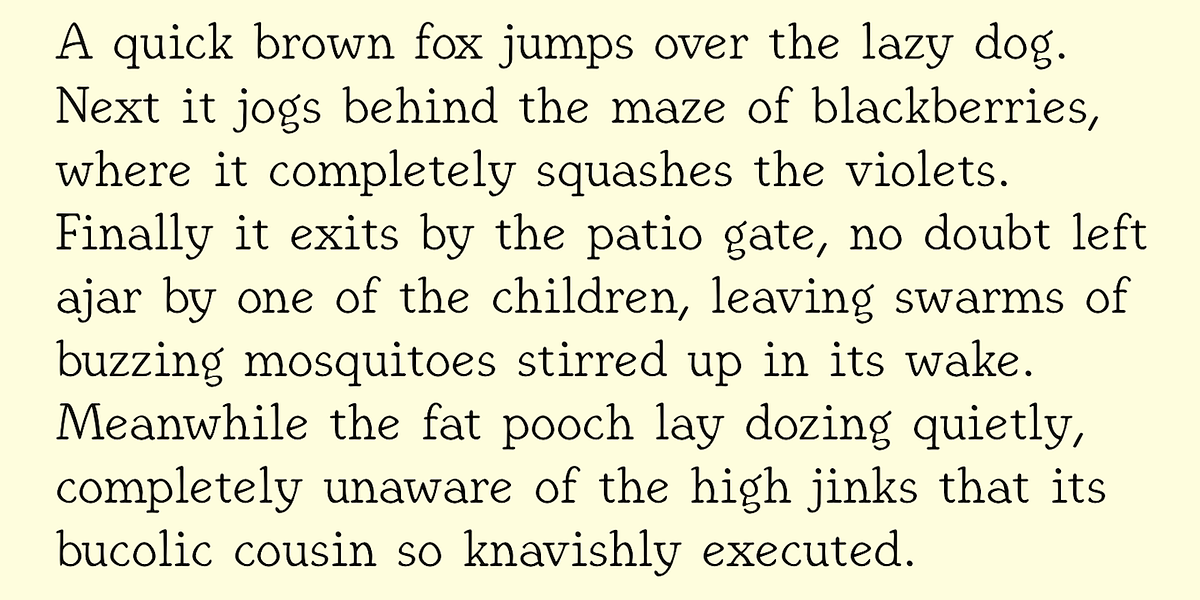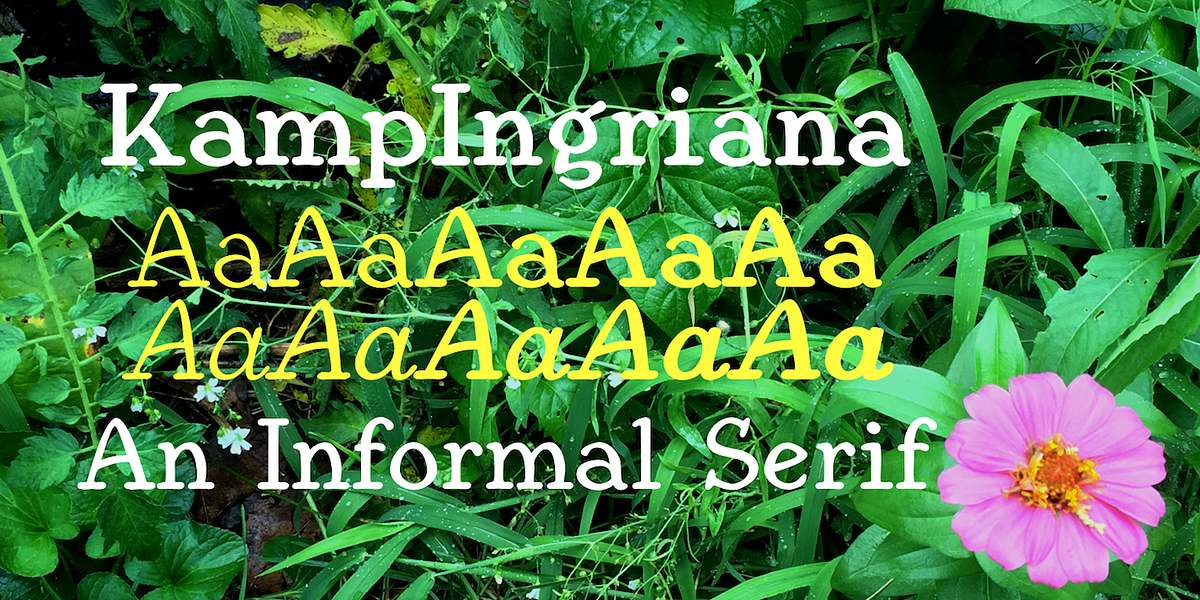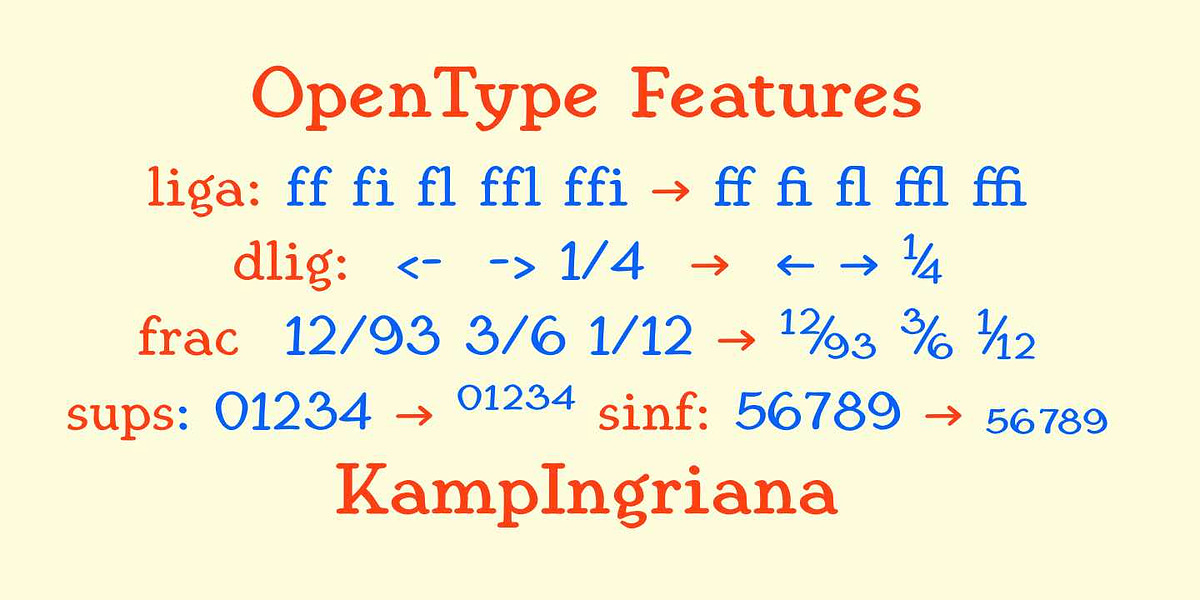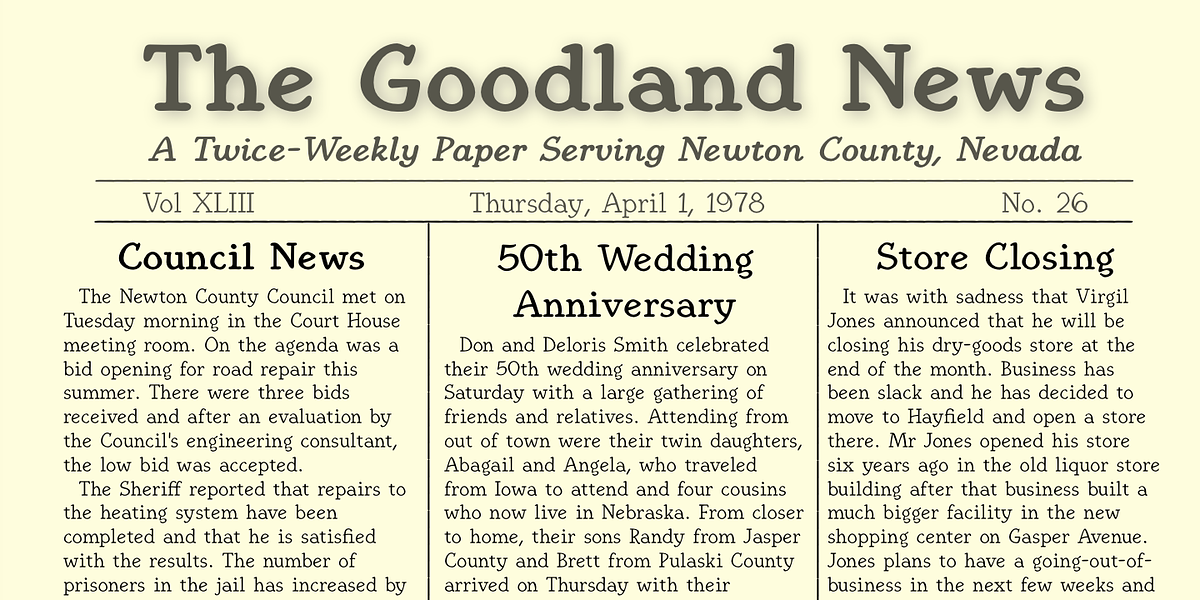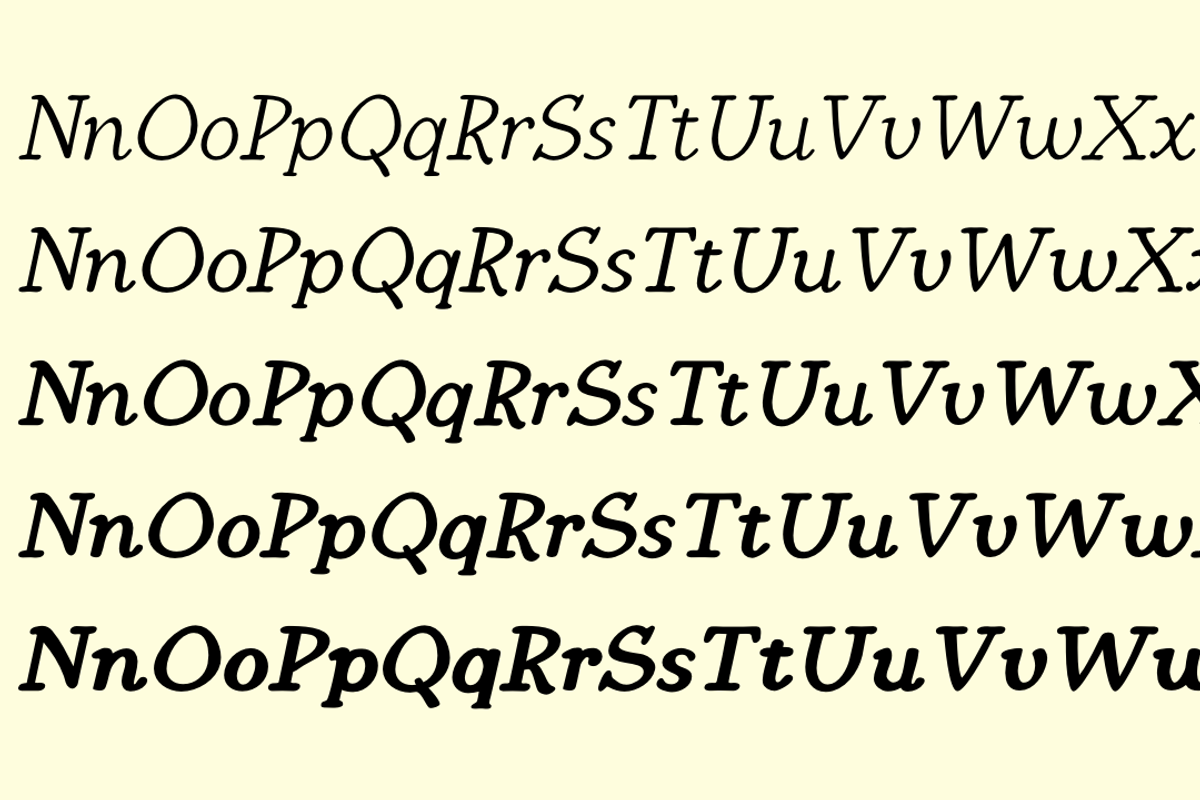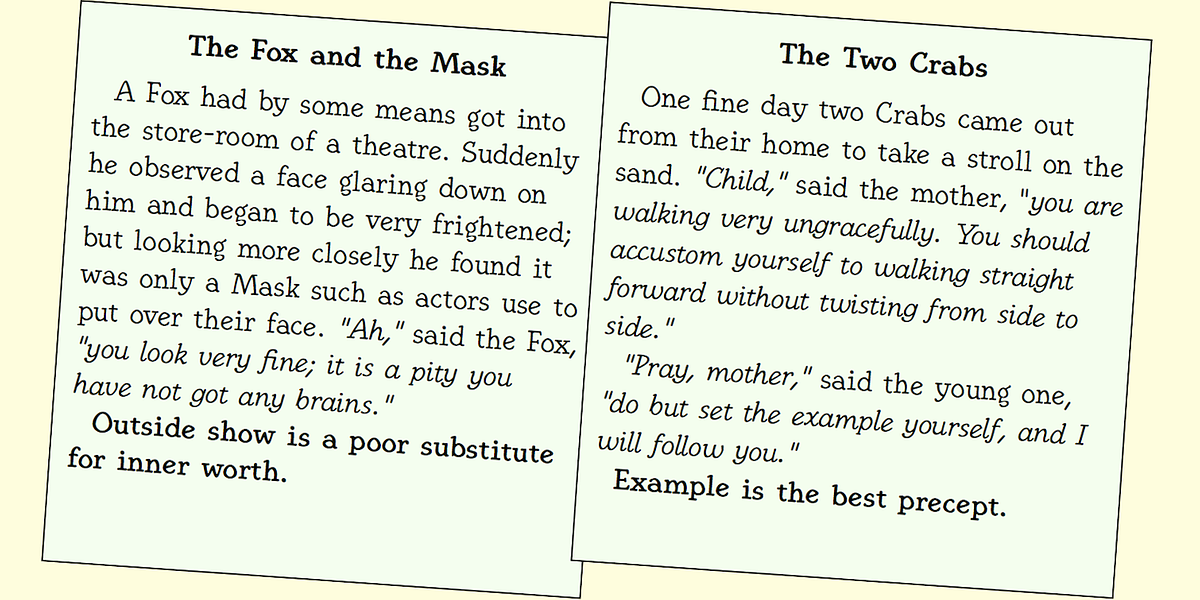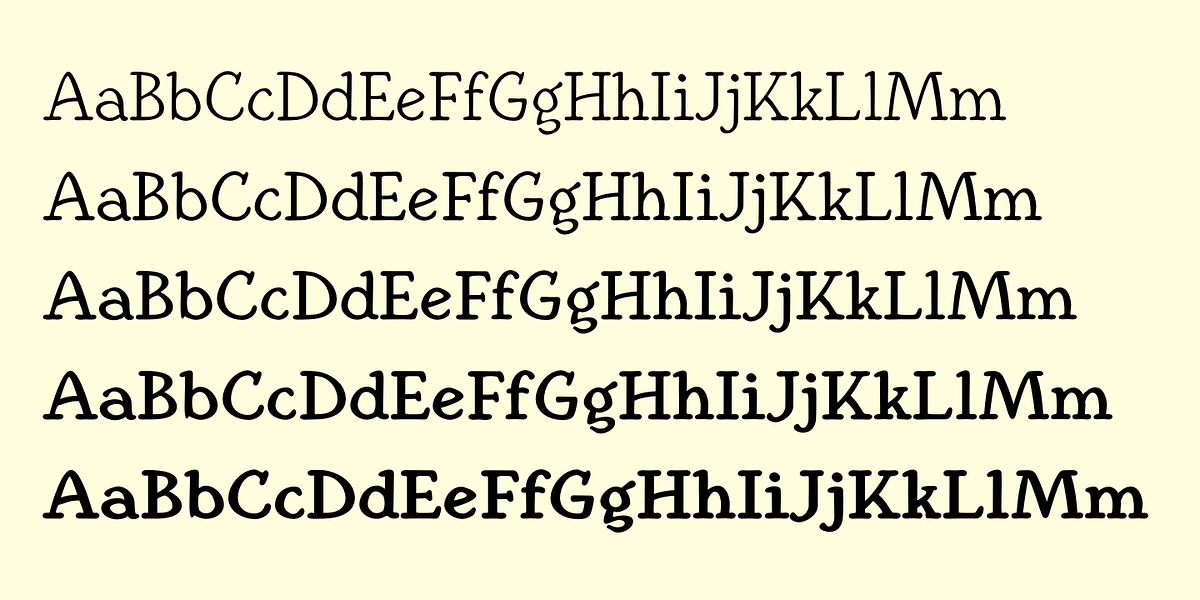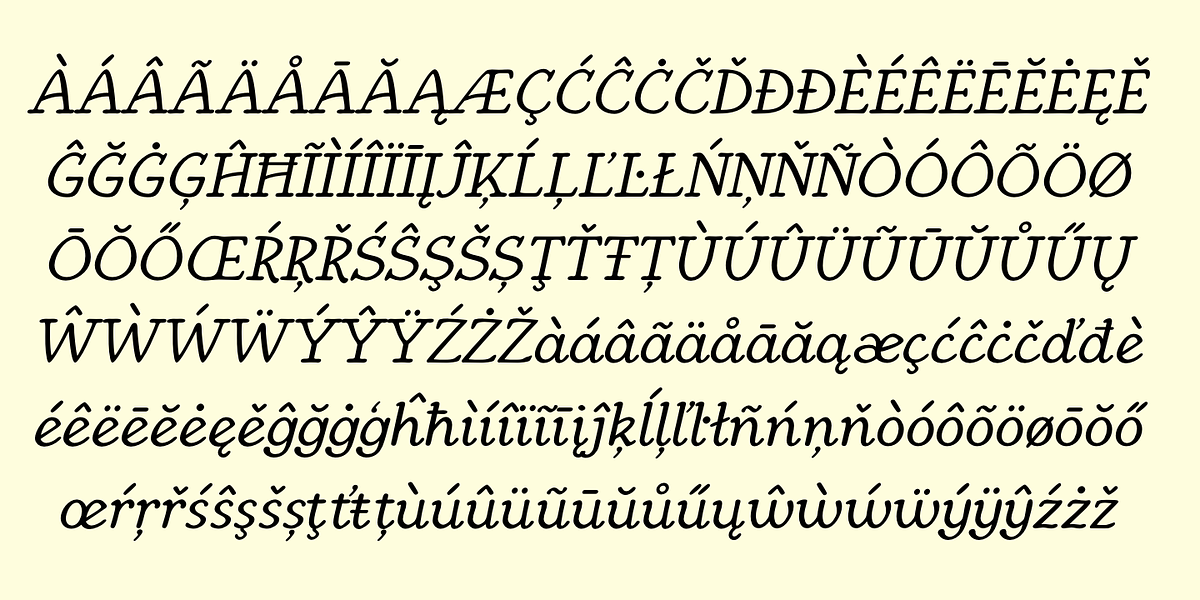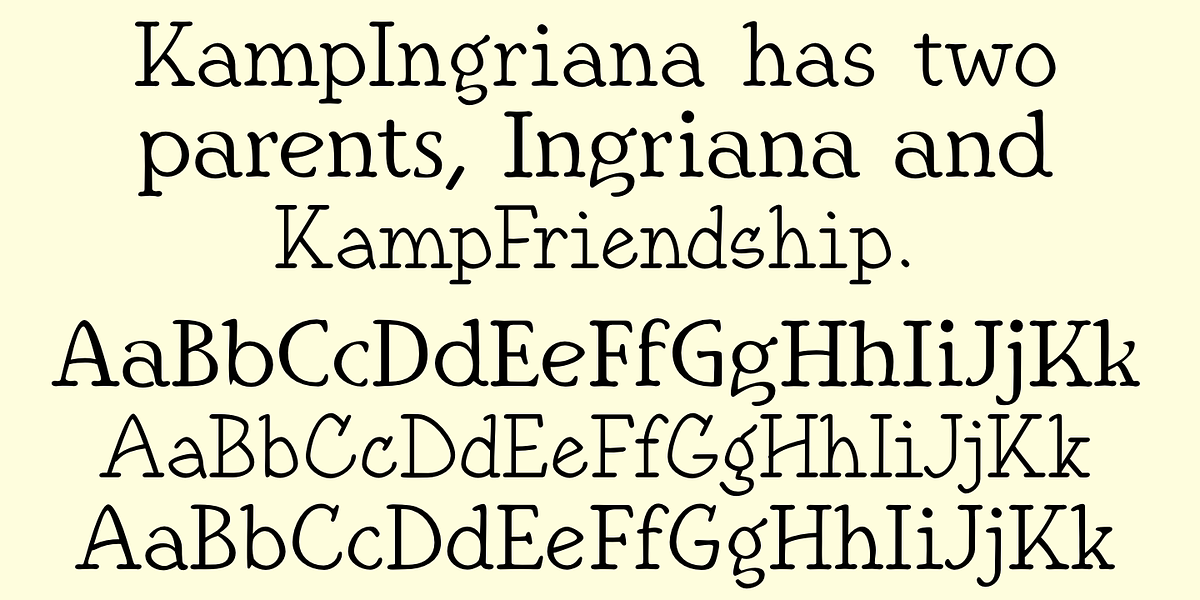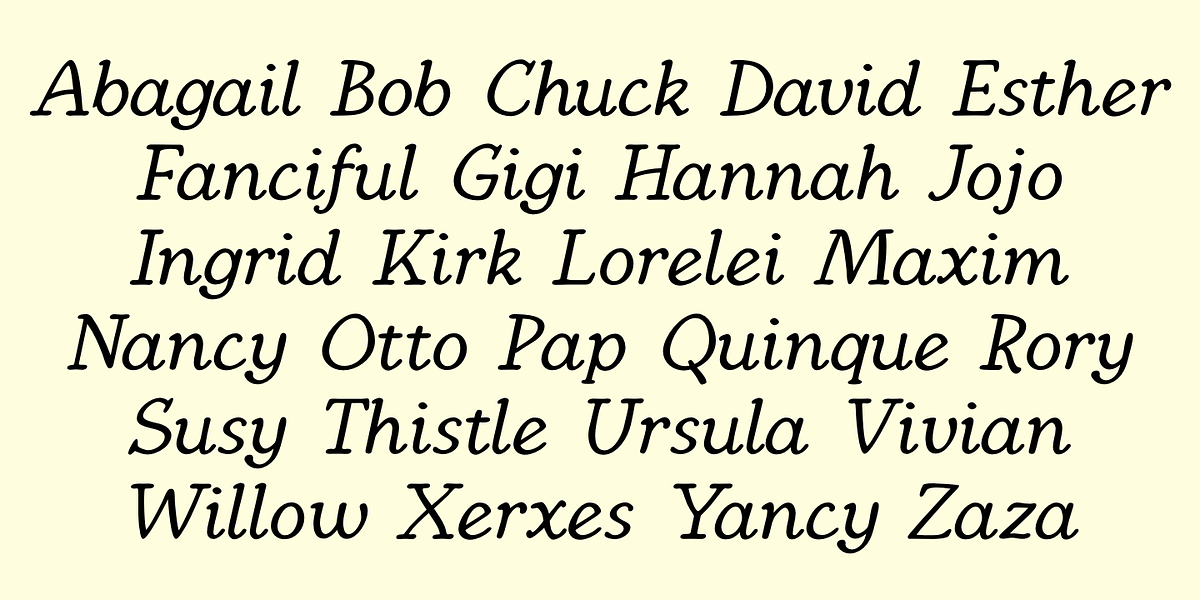
KampIngriana
KampIngriana is a serif font characterized by its hand-drawn aesthetic. It originated from blending two distinct fonts: Ingriana, a friendly and soft typeface, and KampFriendship, which mimics a handwritten serif style. The result is a unique font with a blend of softness and structured serifs. The font comes in a variety of weights, making it suitable for different display purposes.